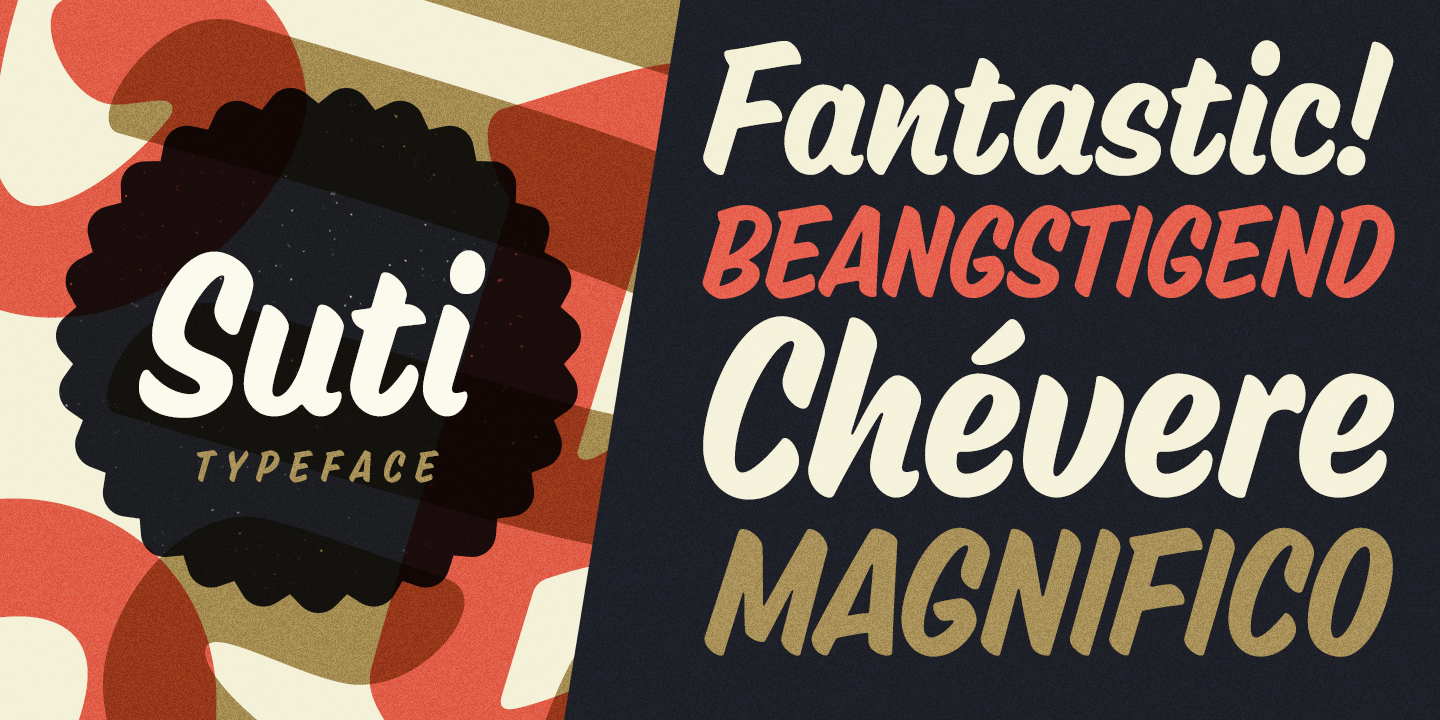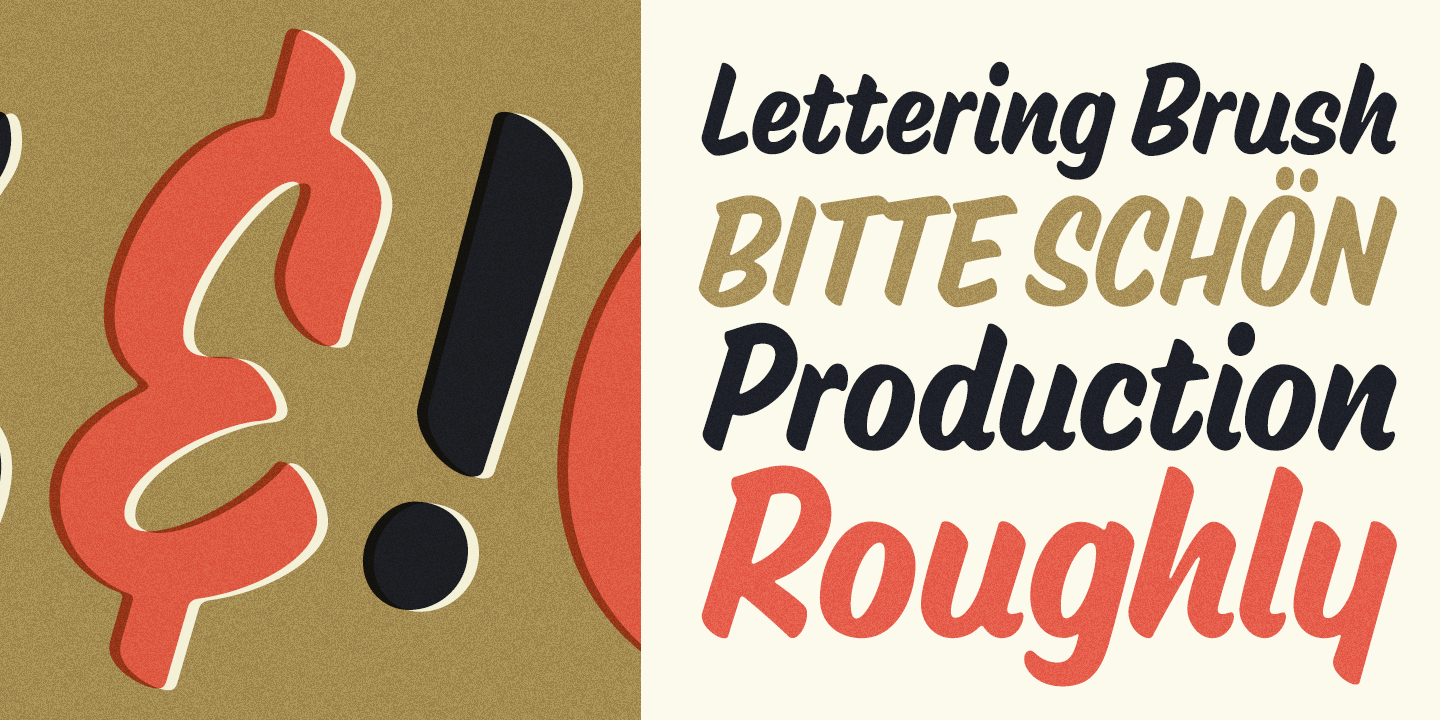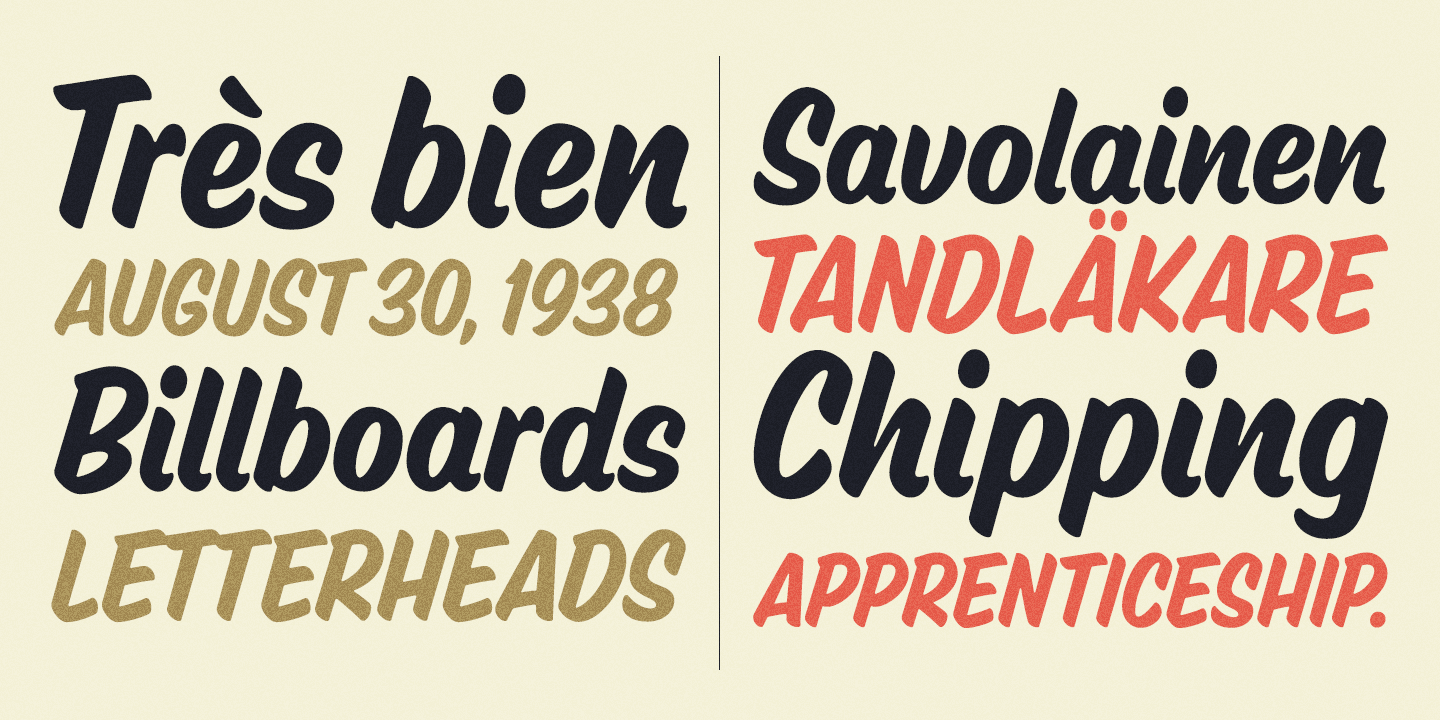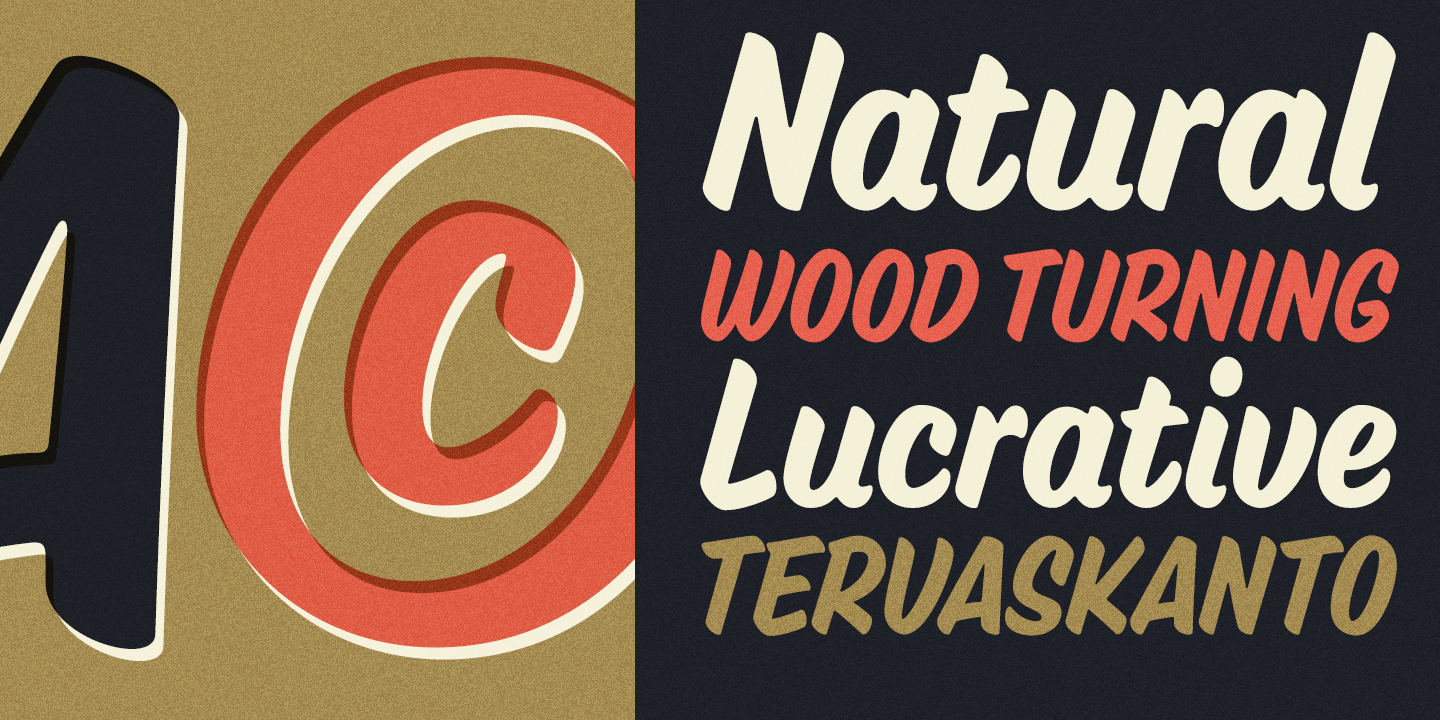
About the Suti Font
About Suti Font Family Suti is a non-connected sign painters casual script with upper and lower cases, Suti was originally designed in 2010 but it was completely re-drawn in 2016, Casual lettering is a style sign painters use, Every sign painter has more or less their own style to make these letters, The casual alphabets are painted with speed and they don’t need to line perfectly but letters are still clean and easy to read
Suti has smooth and round forms, Friendly and casual looks, It is suitable for logos, titles, package design or where ever you need a fun and sympathetic display font, Publisher: MelvastypeFoundry: MelvastypeDesign Owner: MelvastypeMyFonts debut: Jan 19, 2011 Suti